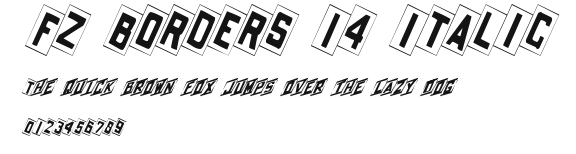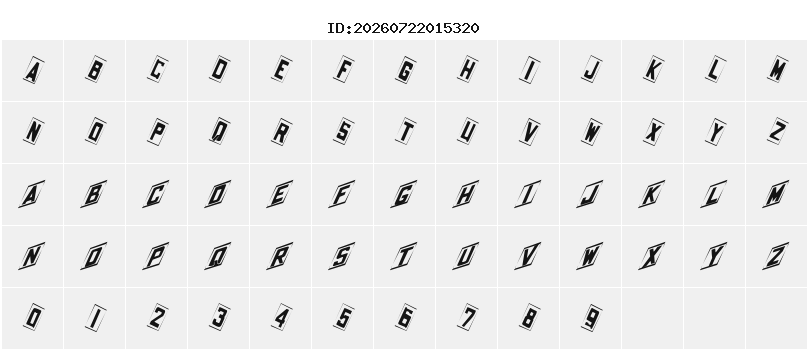
• Font Name: FZ BORDERS 14 ITALIC
• Full Font Name: FZ BORDERS 14 ITALIC
About FZ BORDERS 14 ITALIC.ttf
FZ BORDERS 14 ITALIC.ttf is a modern, elegant sans-serif font designed for ultimate readability and visual harmony. Perfect for branding, headlines, web design, and print materials.